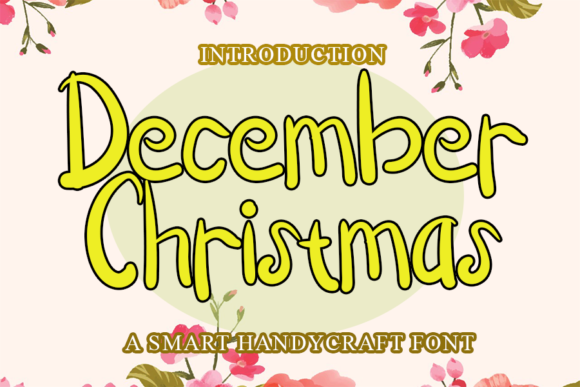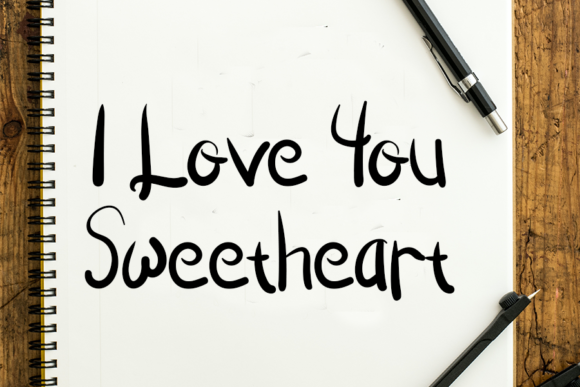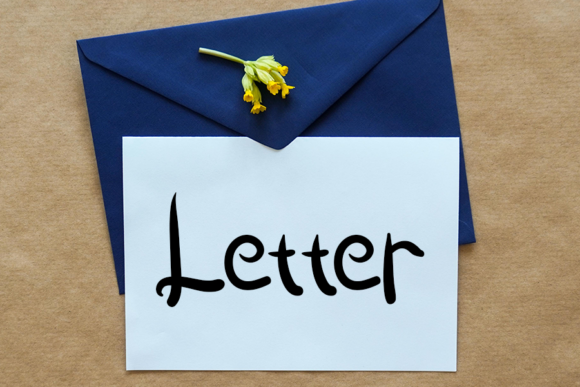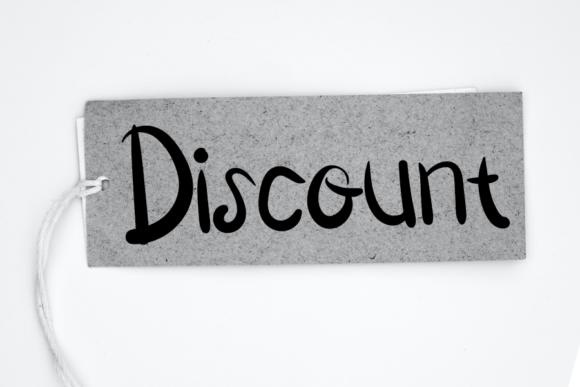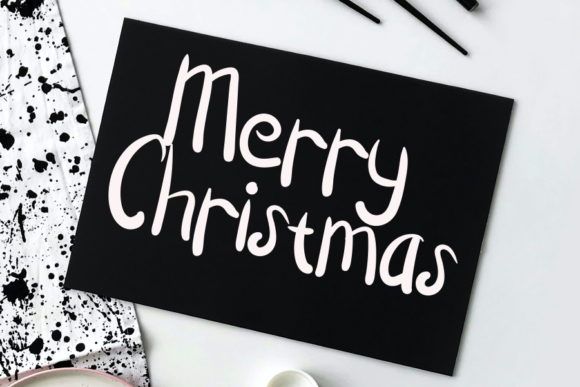
HomePersonal Use FreeDecember Christmas Personal Use Free December Christmas FacebookTwitterPinterestWhatsApp 1 of 5 About December Christmas Font December Christmas is a natural and simple handwritten font. Whether you’re using it for crafting, digital designing, presentations or greeting cards making, it’s perfect! DOWNLOAD NOW People also explored White Coffee Cappuccino Mug Mockup with Magenta Pink Tulips Typethink Font Halybed Font Maldina Font MoonBeam Font Miel William Dhatos Font Mezza Light Font Sisterhood Font 164 0 TagsDecember Christmas Font Previous articleHappy SantaNext articleNo Virus LEAVE A REPLY Cancel reply Comment: Please enter your comment! Name:* Please enter your name here Email:* You have entered an incorrect email address! Please enter your email address here Website: Save my name, email, and website in this browser for the next time I comment. Personal Use Free Dream Orphans Personal Use Free Read more about this font Malinda Personal Use Free Read more about this font Einstaint Personal Use Free Read more about this font Arabella Script Personal Use Free Read more about this font BLOG Free vs Paid Fonts: Why Investing in Premium Fonts Is Worth It Free vs Paid Fonts: Why Premium Fonts Are Worth It in 2025 The debate of free vs paid fonts continues in the design world. While... Where to Buy American Fonts Online in 2024 Using Fonts in Digital Marketing: Tips to Strengthen Your Brand Identity Best Fonts for YouTube Videos: Make Your Thumbnails Stand Out